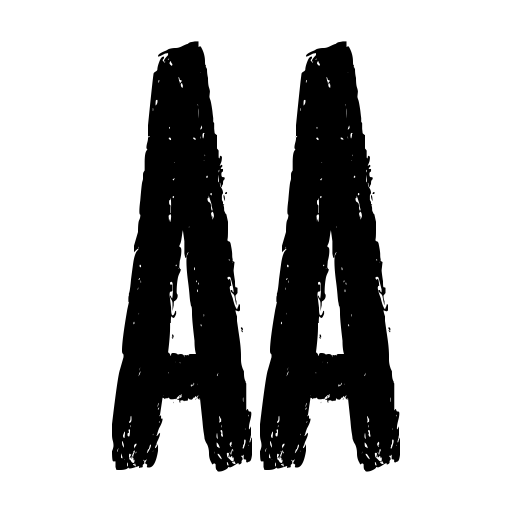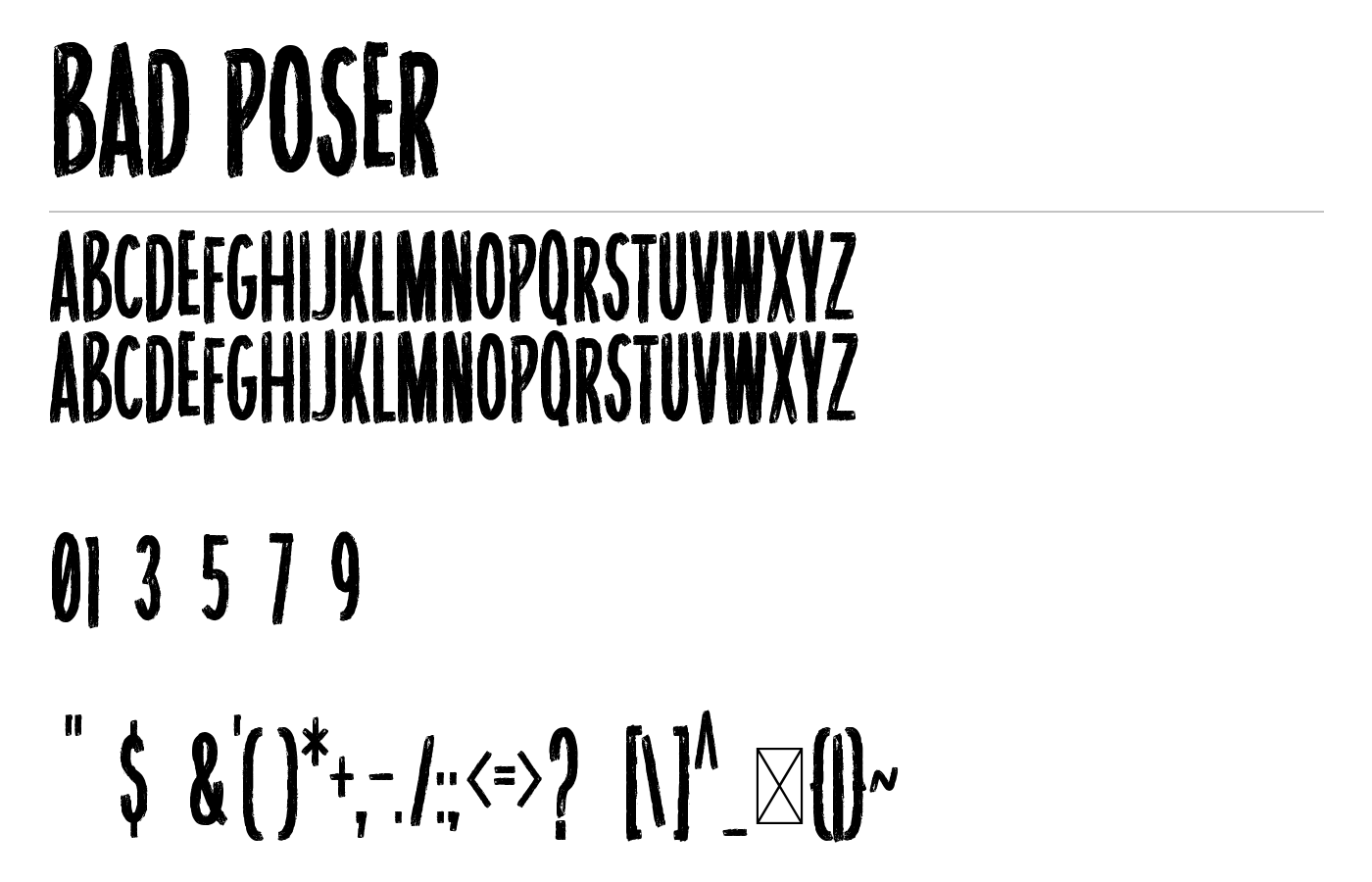
Bad Poser is a bold, condensed sans serif font with a rough, textured style that gives it a hand-printed and slightly distressed look. Its tall, narrow letterforms and irregular stroke texture create a casual yet striking appearance, perfect for designs that want to convey a gritty, edgy, or vintage vibe. This font works well in posters, branding, and headlines where a unique, attention-grabbing personality is needed.
| Font family | Bad Poser Font |
| Designer | Anang F & Malik Wsn | Gassstype© Studio 2021 |